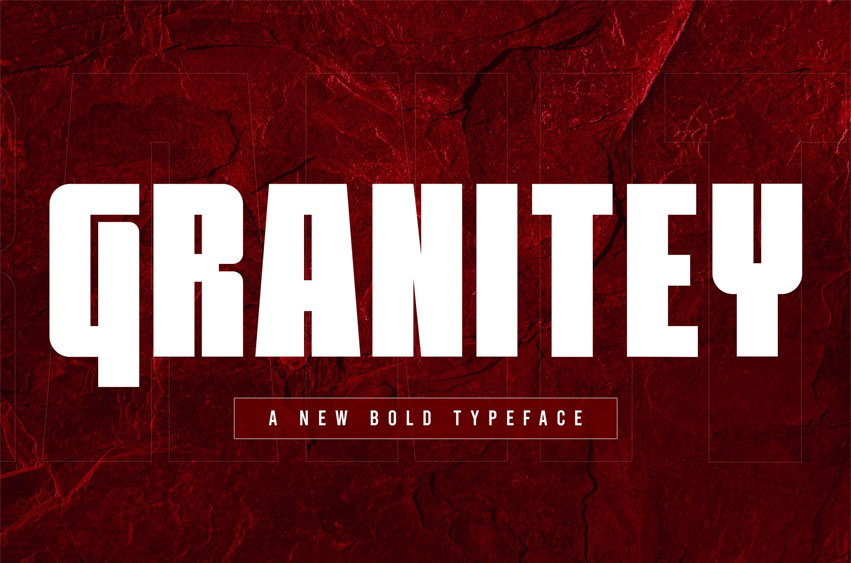
Granitey Font
Granitey Font is a modern, bold sans-serif typeface designed to make a powerful statement. With its strong, geometric forms and thick, commanding presence, this font exudes confidence and stability. The sharp angles and unique cut-ins give it a distinct character, making it ideal for projects that demand attention.
This font is perfect for a wide range of applications, including:
• Bold headlines and titles
• Logos and branding for modern businesses
• Sport and athletic design
• Posters and promotional materials
• Album covers and music-related graphics
• Digital and print advertising
Granitey is built with a comprehensive set of features to maximize your creative potential:
• Uppercase & Lowercase: Complete sets of capital and small letters, offering versatility in your designs.
• Numbers & Punctuation: Full set of numbers (0-9) and standard punctuation for all your typographic needs.
• Alternates & Ligatures: Unique alternate characters and ligatures to add visual flair and improve the flow of your text.
• Multilingual Support: Granitey supports multiple Latin-based languages, ensuring broad usability for international projects.